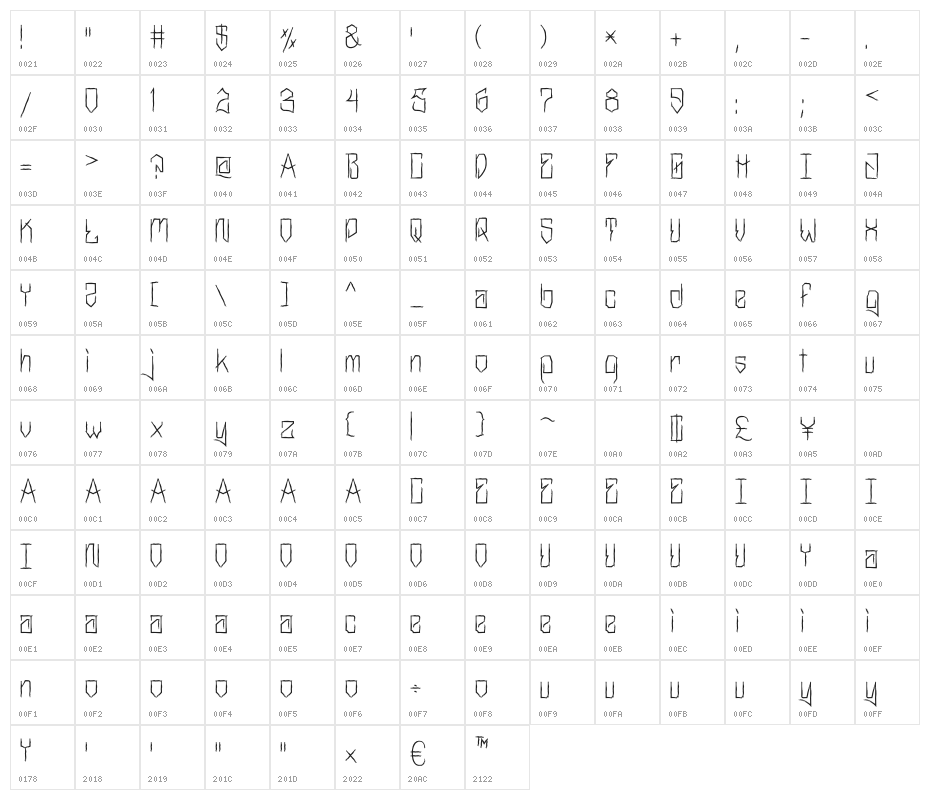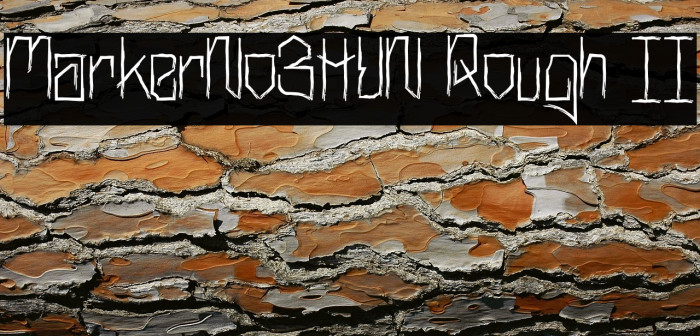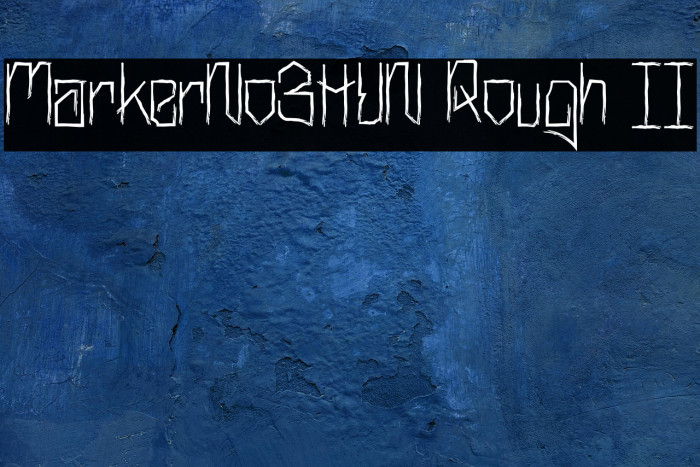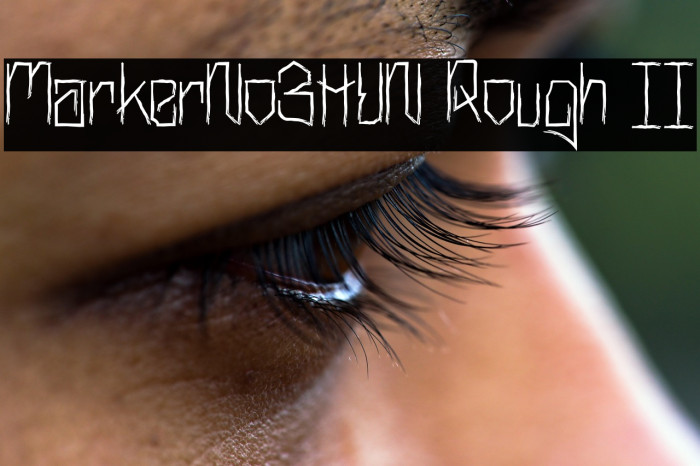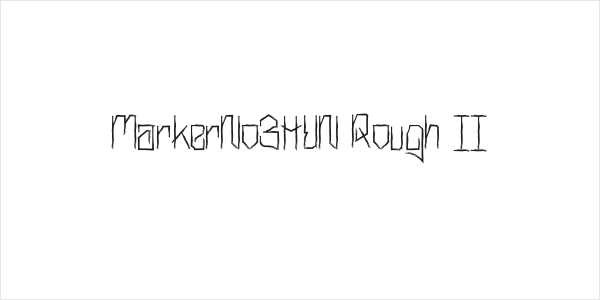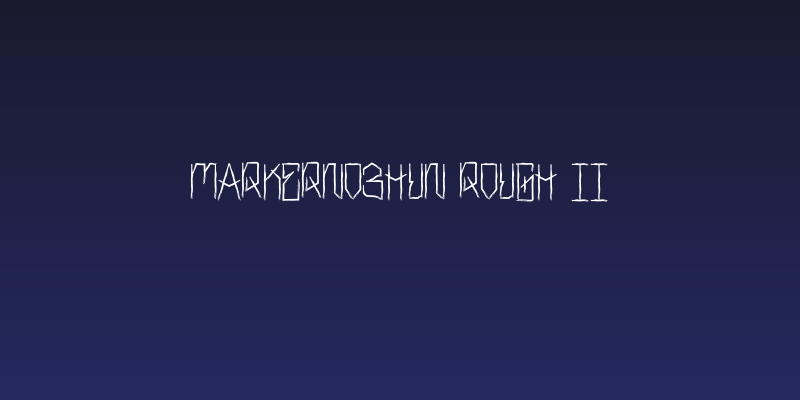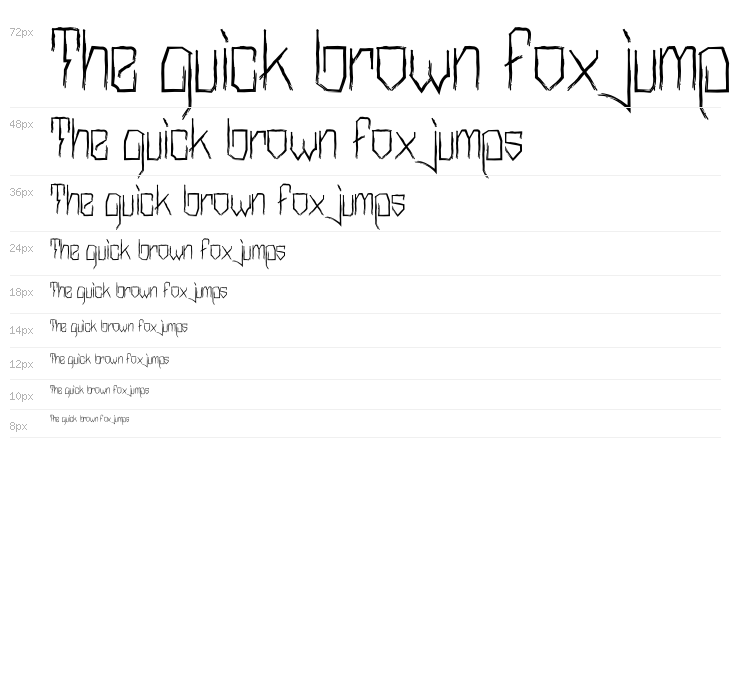
MarkerNo3HUN Rough II Font
MarkerNo3HUN Rough II Description
This font features a rugged, hand-drawn style with uneven strokes that give it a raw and edgy appearance. The characters are angular and sharp, resembling rough sketches or graffiti. The uppercase and lowercase letters maintain a consistent height, while the numbers and special characters follow the same jagged aesthetic. This font's unique style is characterized by its irregular line thickness and distressed look, making it stand out as a bold statement piece.